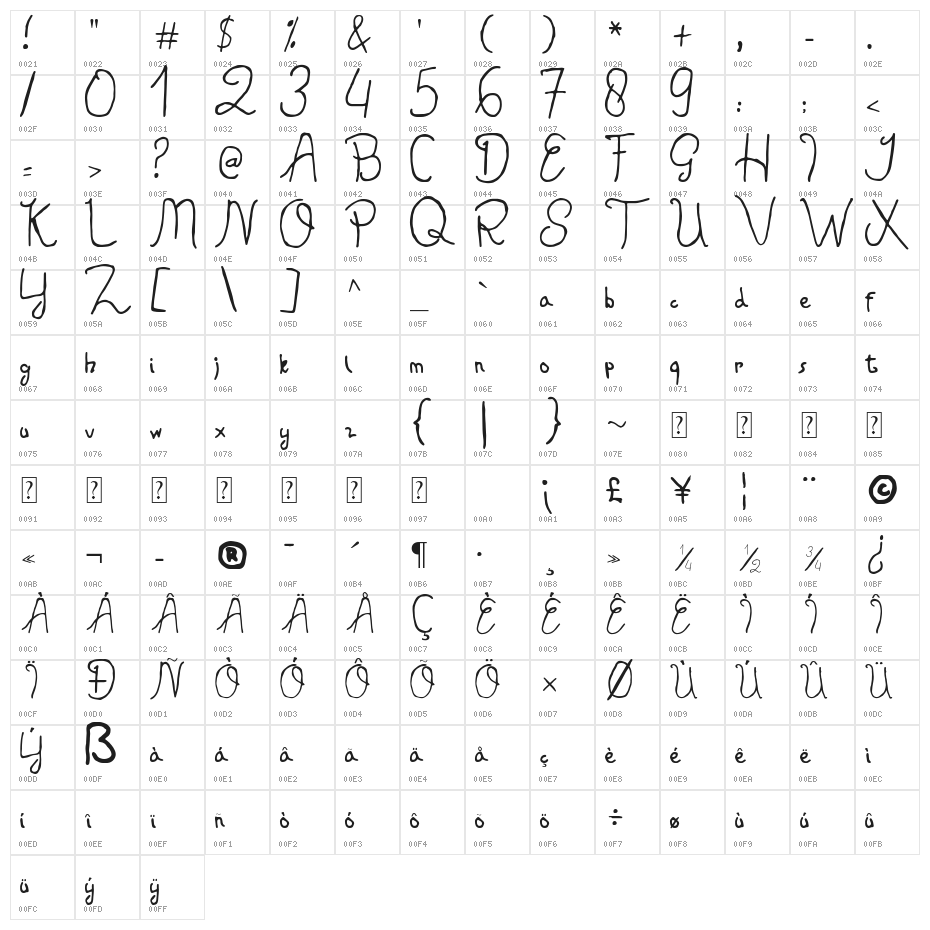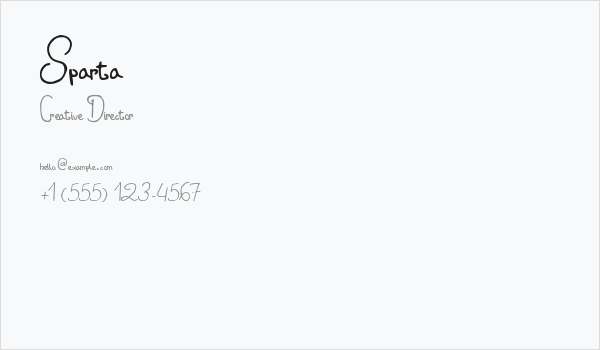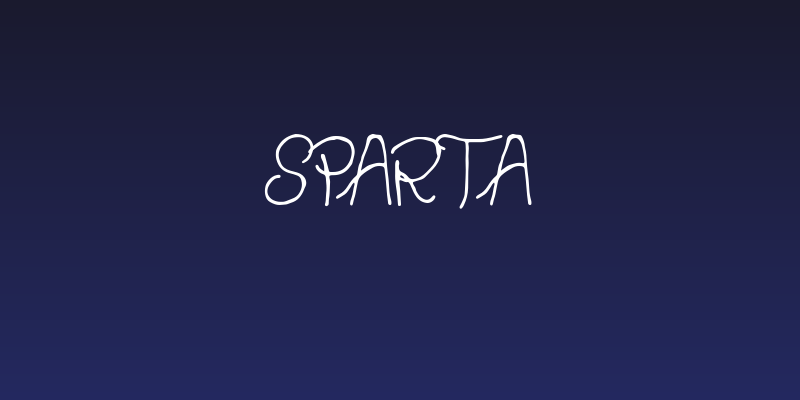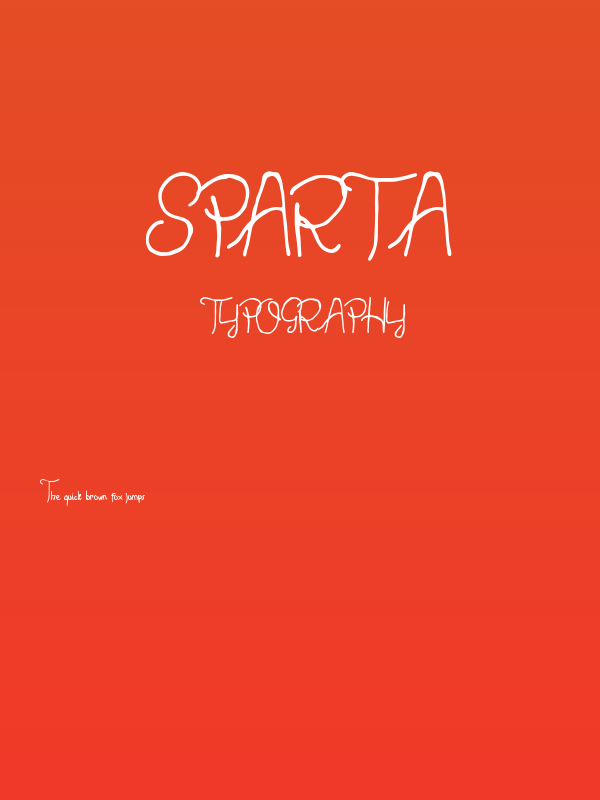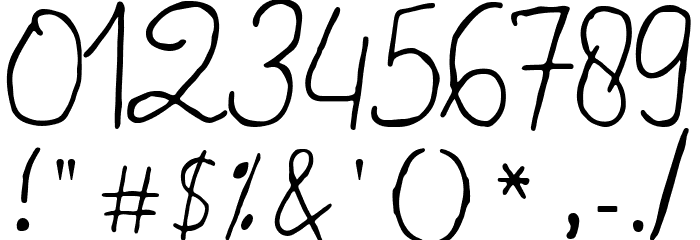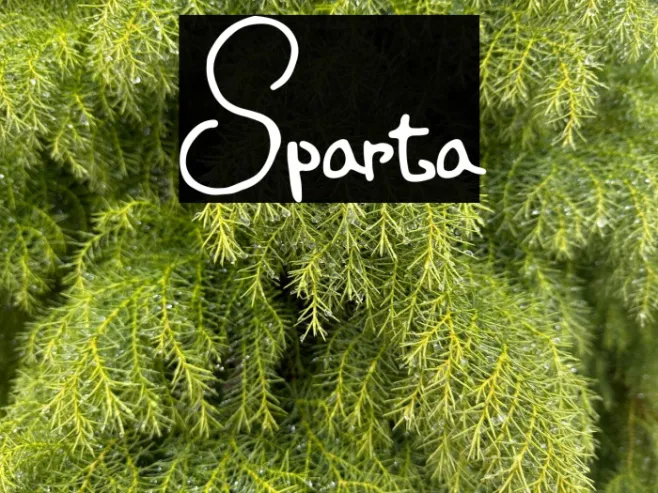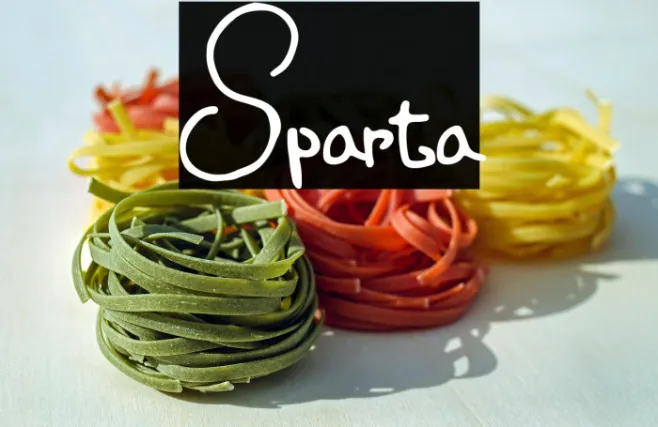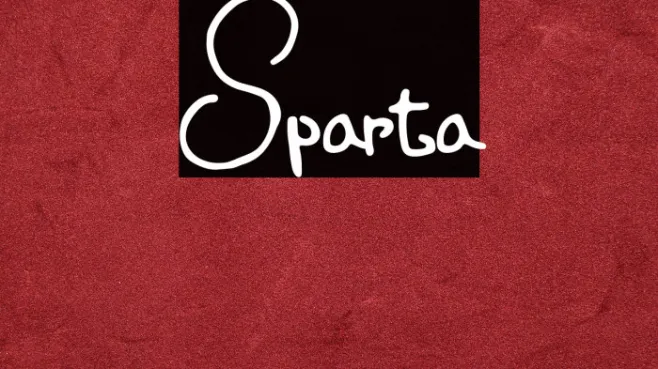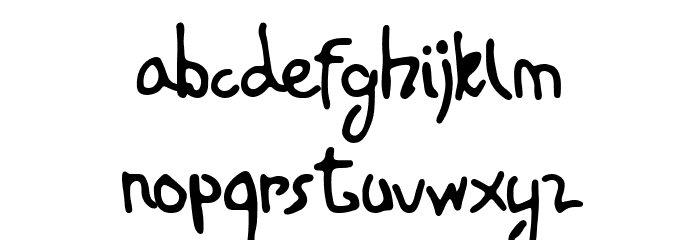
Sparta Font
Sparta Description
This font exhibits a playful and whimsical handwritten style, characterized by its irregular and flowing strokes. The letters have a lively, organic feel, with varying line thickness that adds a sense of movement and energy. The uppercase and lowercase letters maintain a consistent style, with some letters featuring unique, exaggerated curves and loops. The numerals and special characters follow the same playful aesthetic, making the font suitable for creative and informal designs. Its distinctive appearance is both charming and approachable, ideal for projects that require a personal touch.
| Proposed Projects | Ideal for greeting cards, children's books, playful branding, and creative posters. |